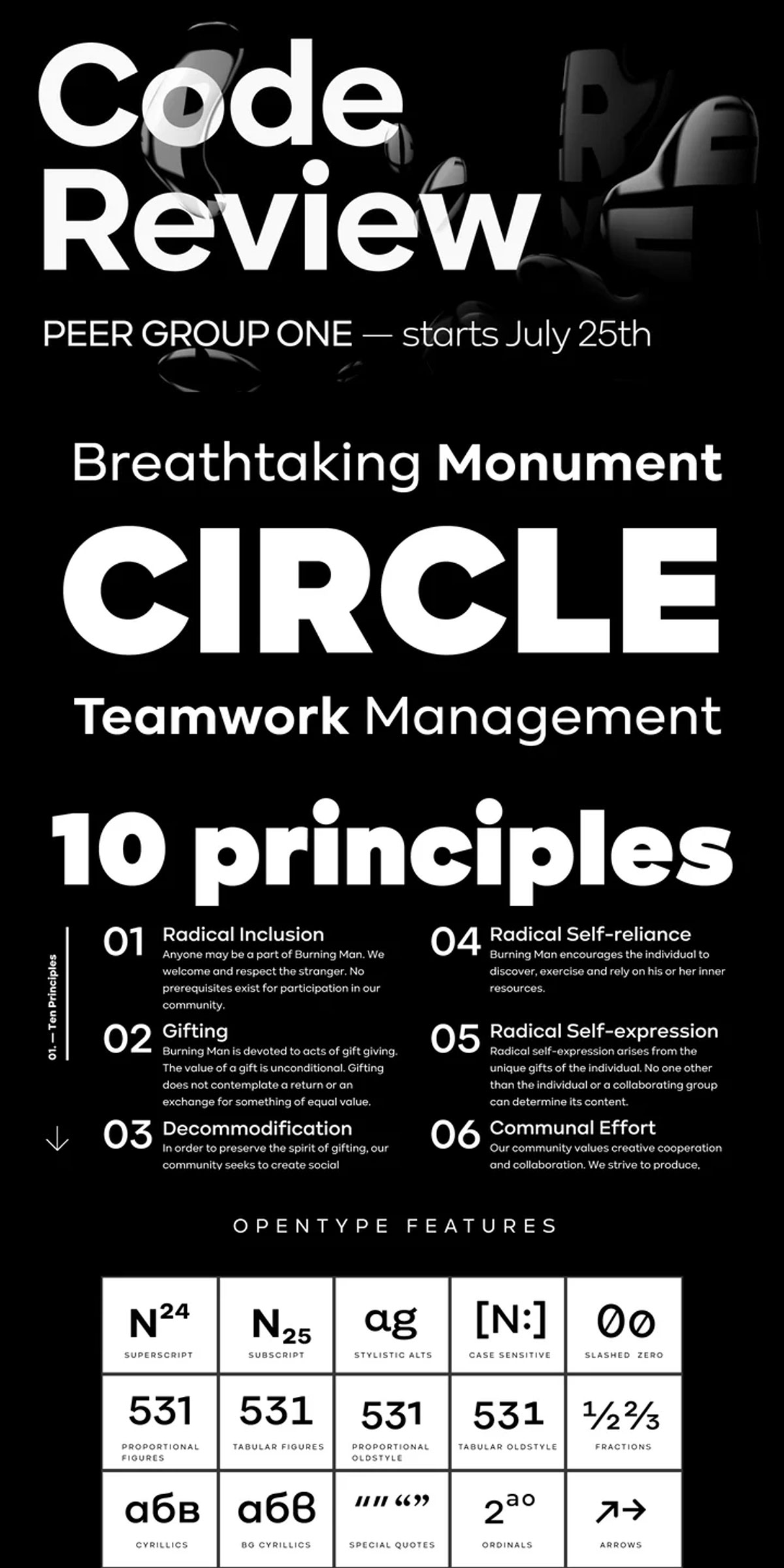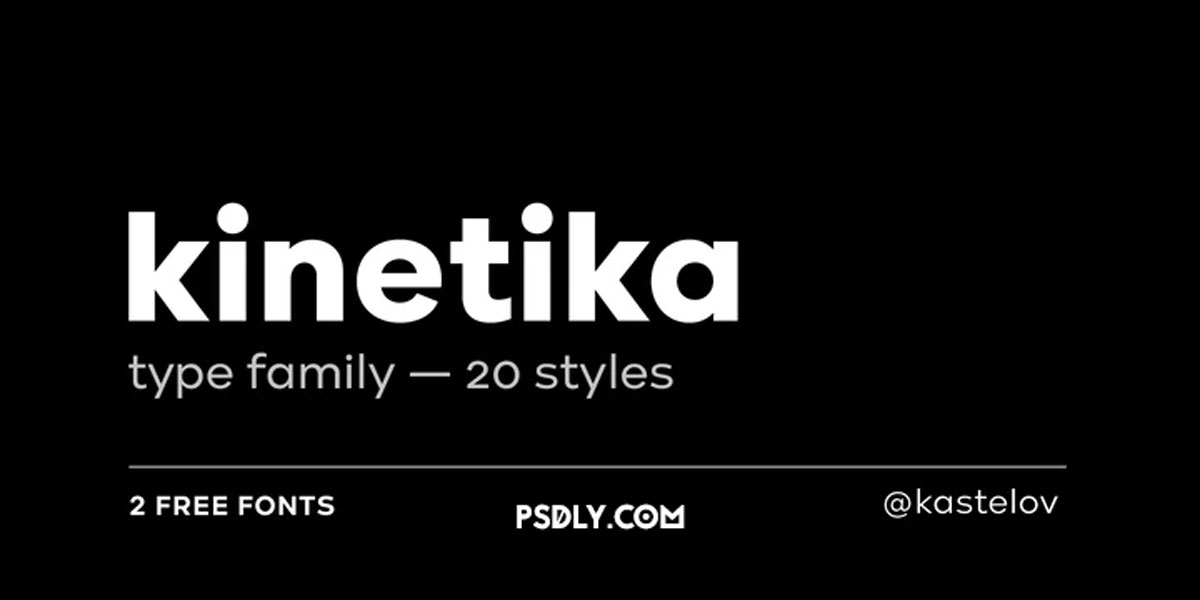
Kinetika Font Family
Kinetika Font Family Free Download. Kinetika is a geometric sans serif family that comes in 20 weights, including uprights and matching italics.
The idea behind Kinetika was to create a very impactful display type family that would be perfect for branding — to do so it needed to have large x-height, distinctive and legible letterforms as well as friendly characters.
In summary the font family is ideal for a variety of cases including advertising, branding, motion design, editorial, packaging and most importantly websites.
Each font features 800+ finely crafted glyphs, smart quotes, tabular figures, beautiful old-style figures, over 20 stylistic sets made to ease your typesetting process as well as subscripts, superscripts, fractions, and more.
Language support is quite extensive, including Cyrillic and extended Latin alphabets, with over 125+ languages supported.